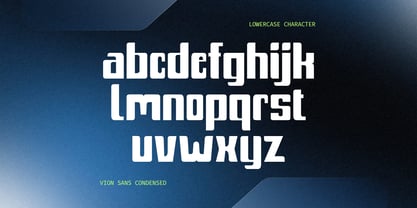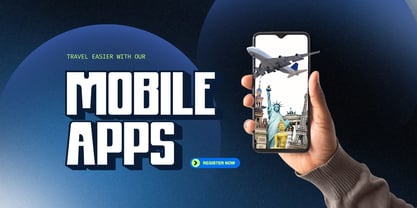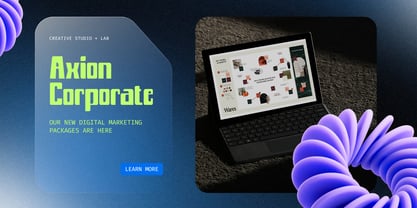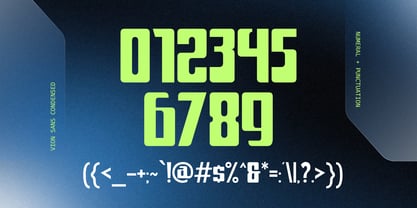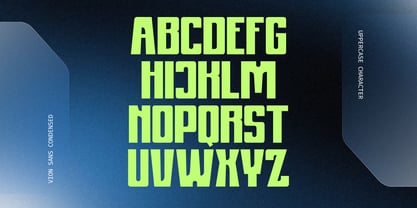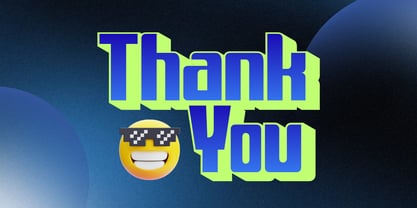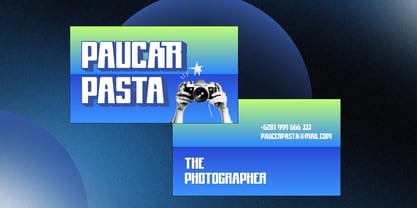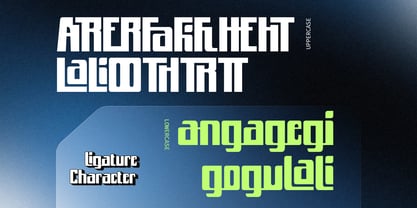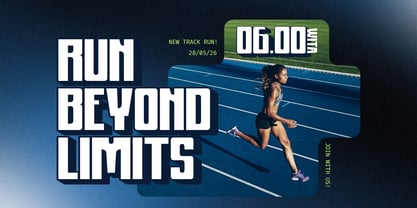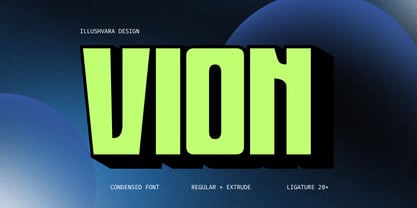
Vion Modern
The Vion Modern Font Family was designed by Bayu Suwirya and published by Illushvara. Vion Modern contains 2 styles and family package options. More about this family
Introducing Vion, a modern condensed bold logo font designed to deliver a strong visual impact with its clean proportions and contemporary character. With a sleek and confident appearance, Vion is ideal for a variety of applications including branding, logos, sports identity, fashion labels, posters, packaging, editorial layouts, and modern corporate design. This font package features Regular and Extrude styles, enabling you to create bold dimensional typography effortlessly. Vion seamlessly combines versatility with standout aesthetics, making it the perfect choice for projects that require a powerful and professional look.